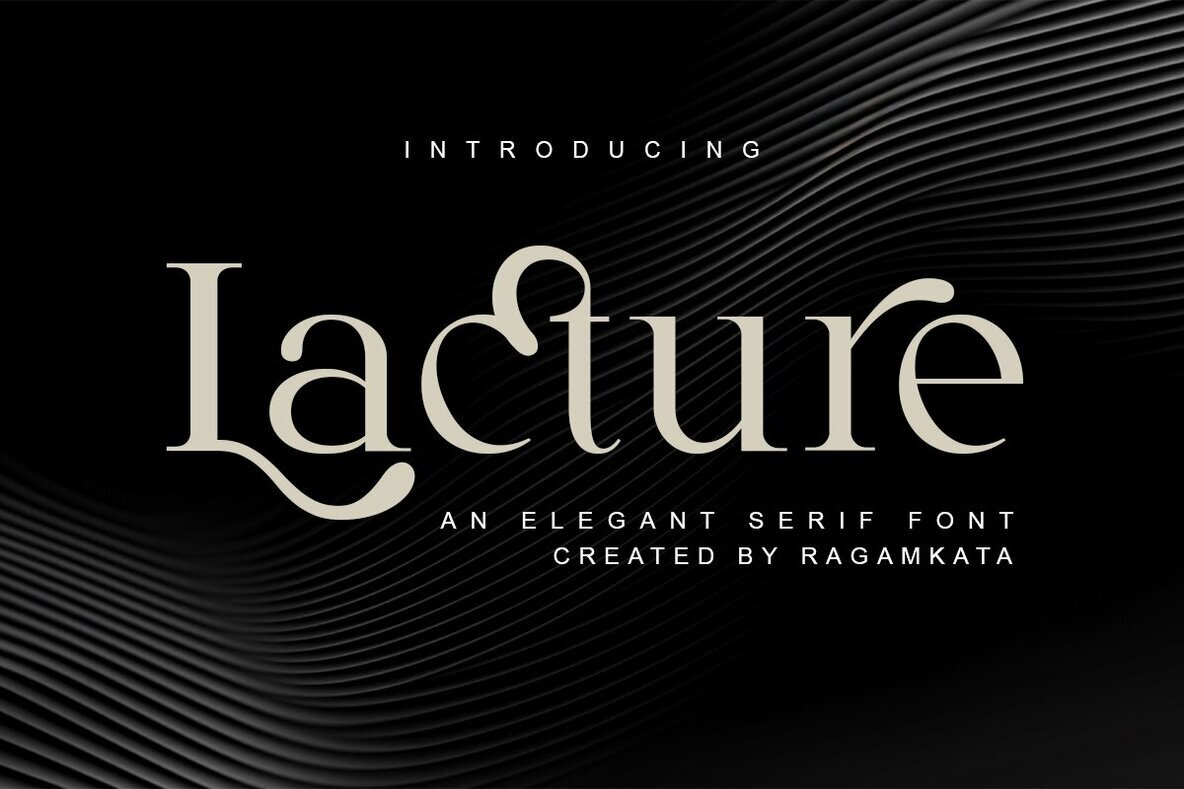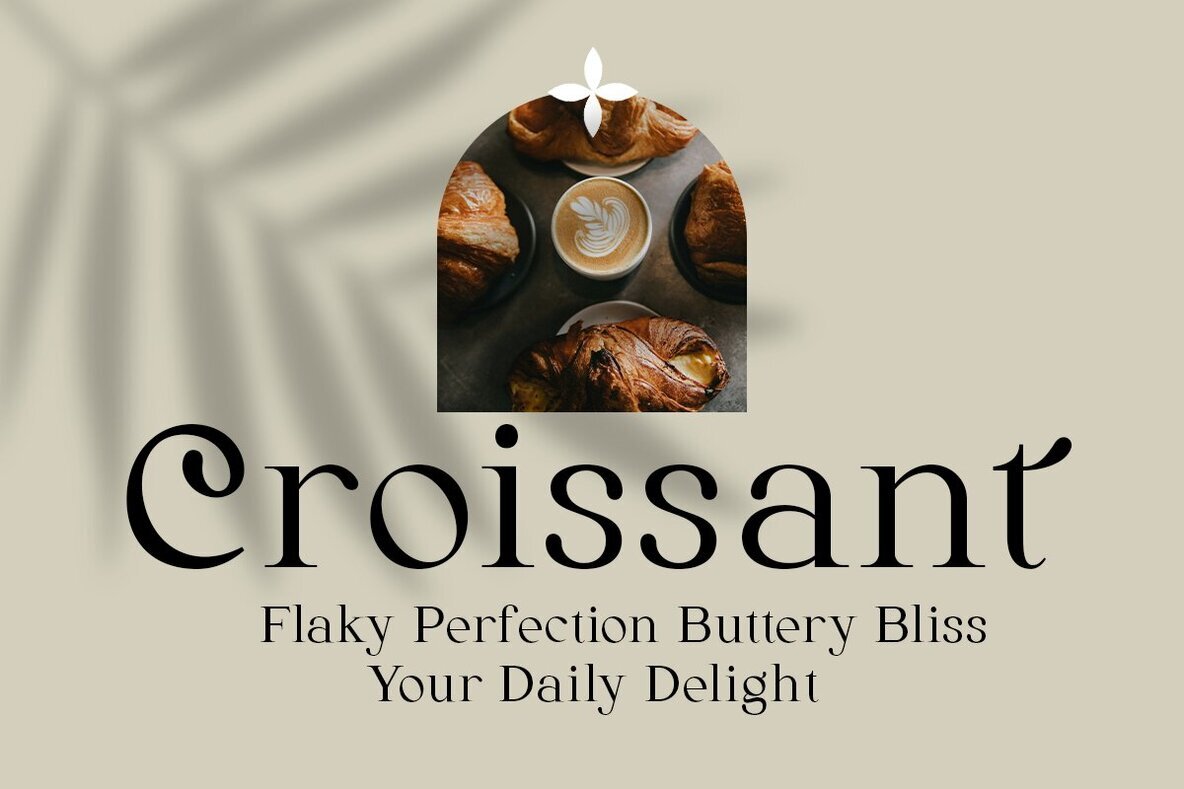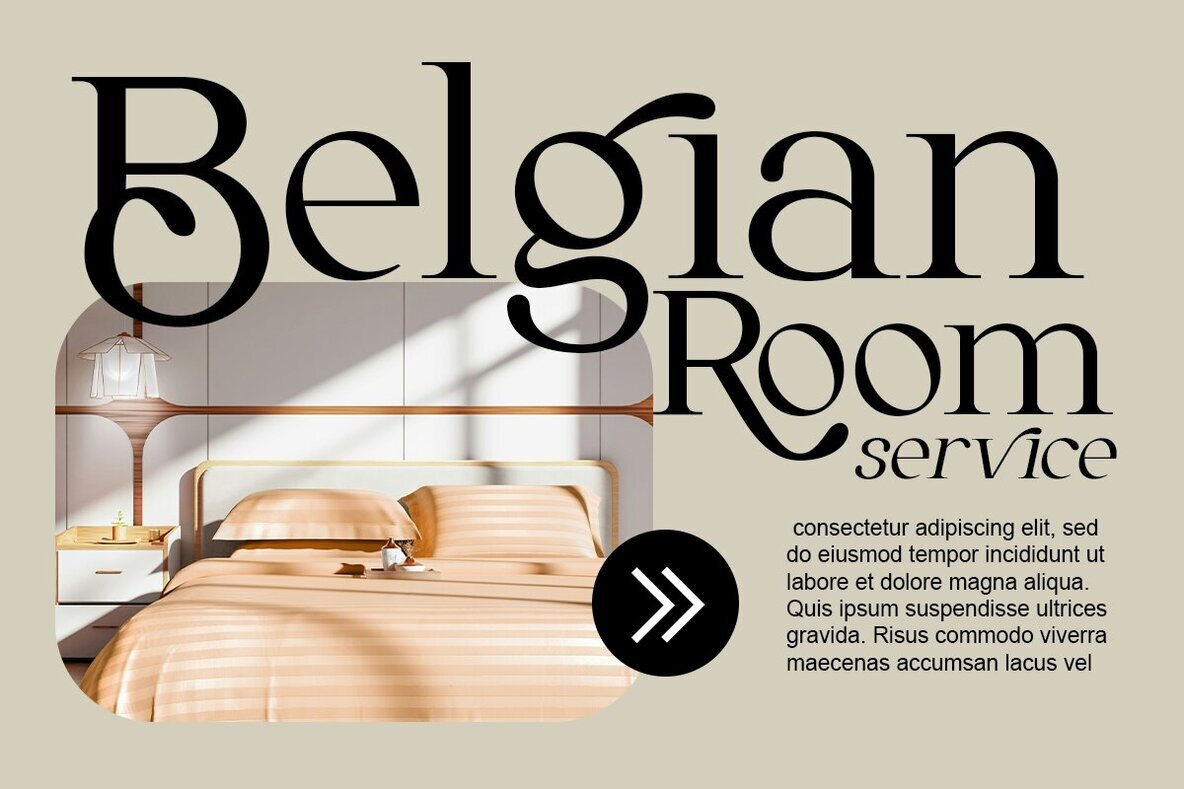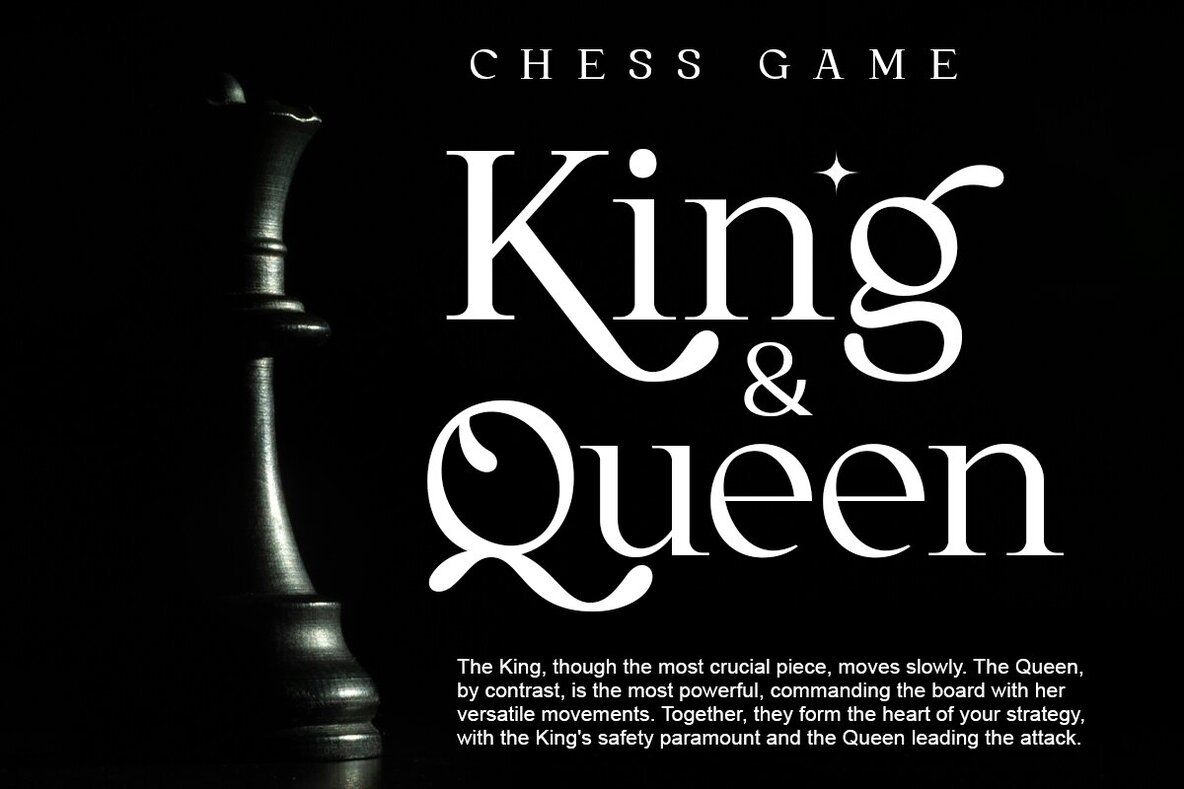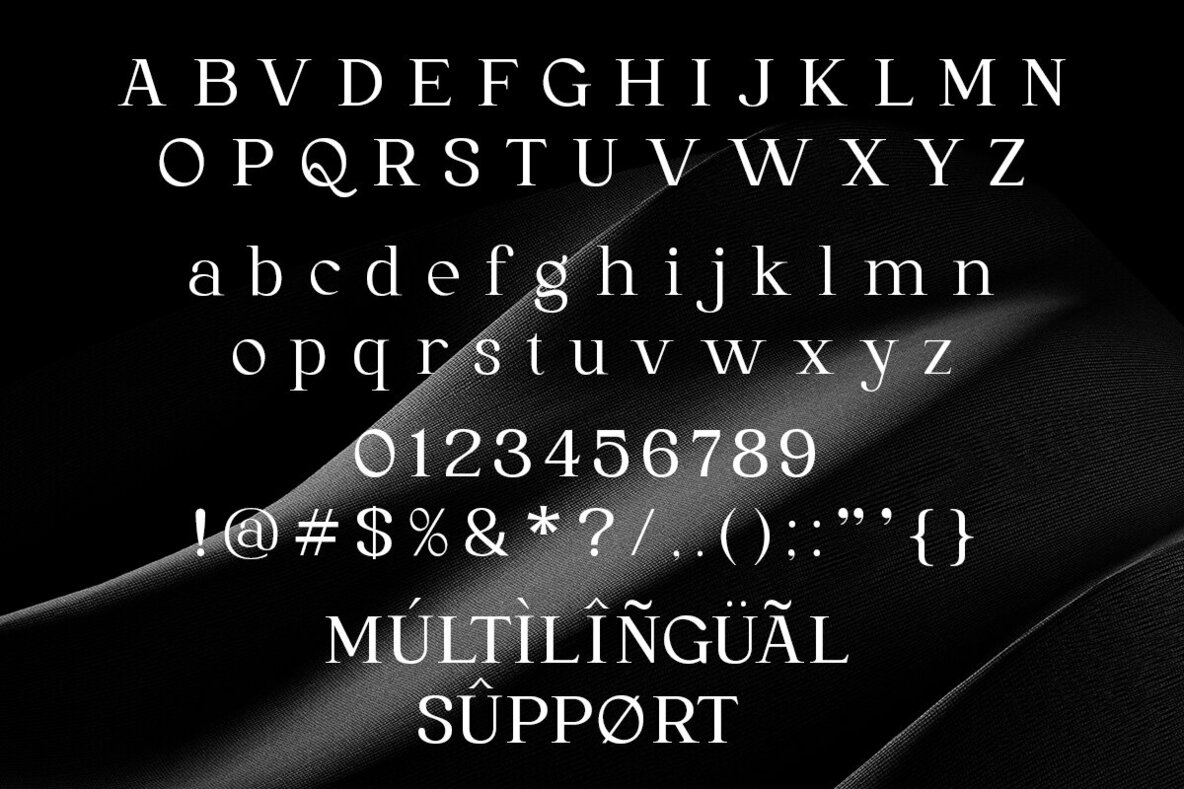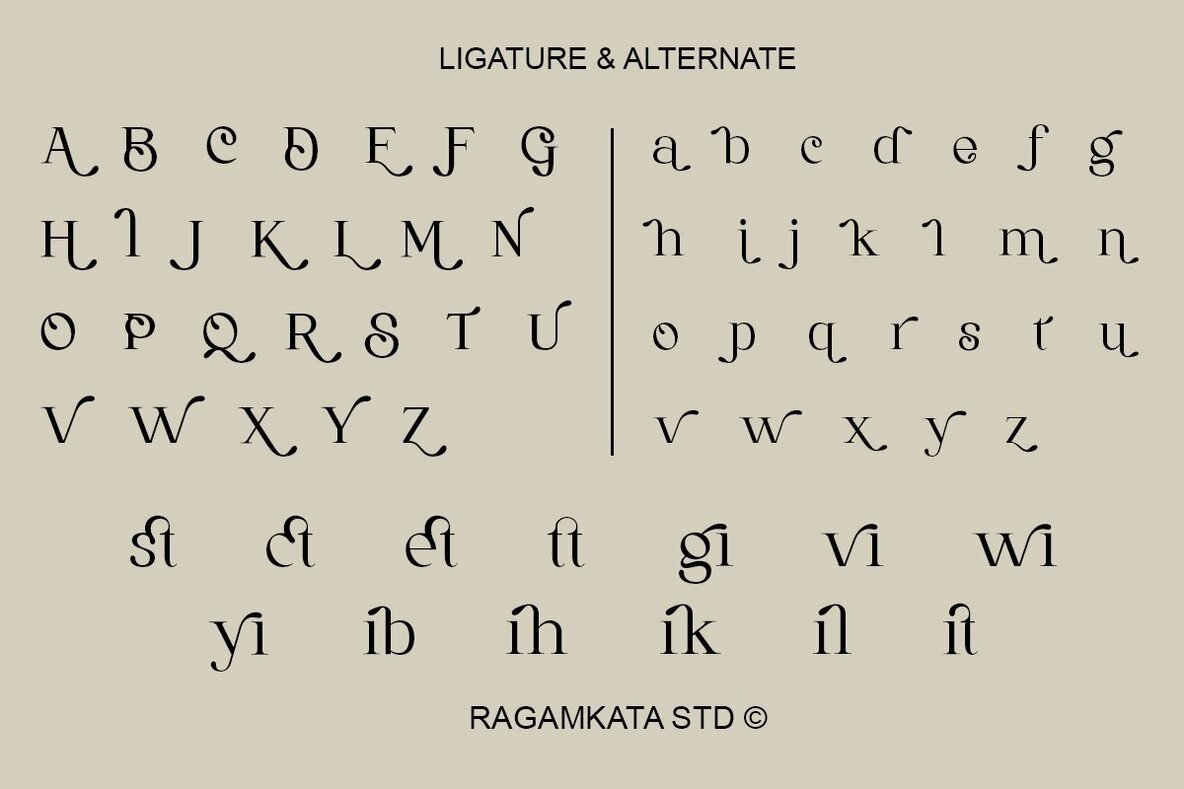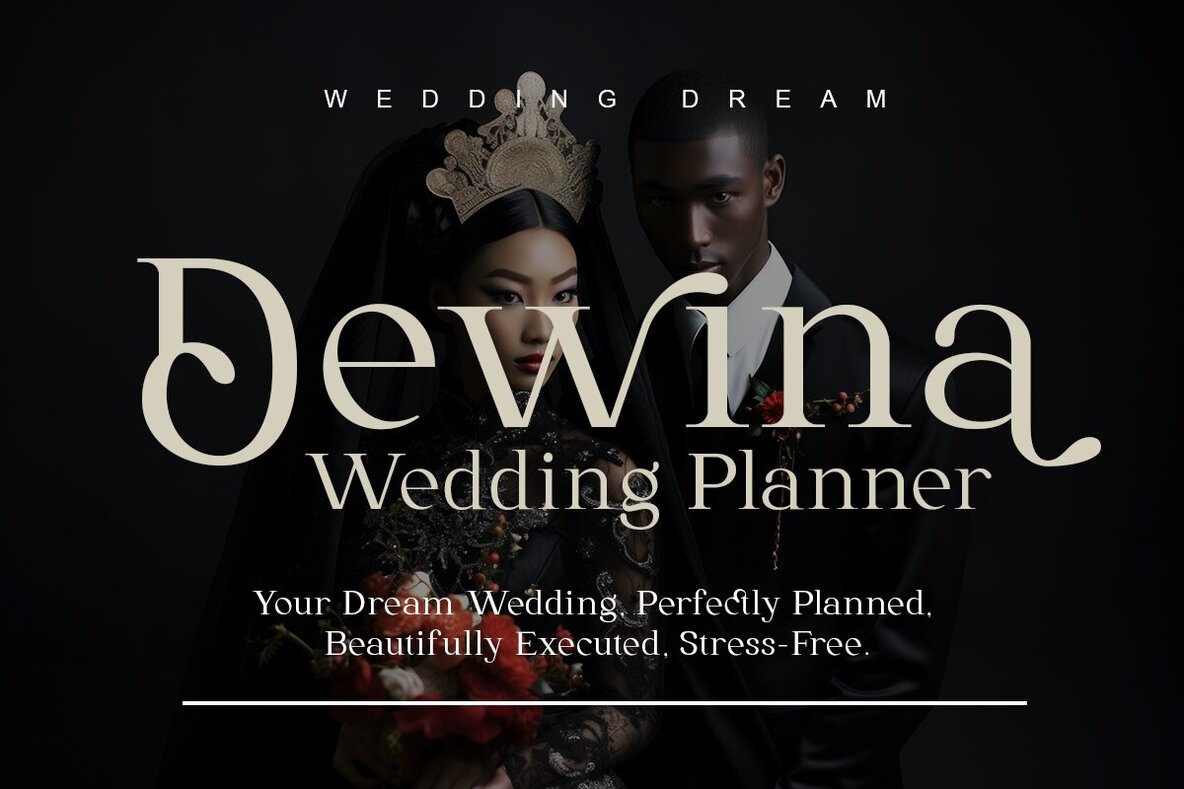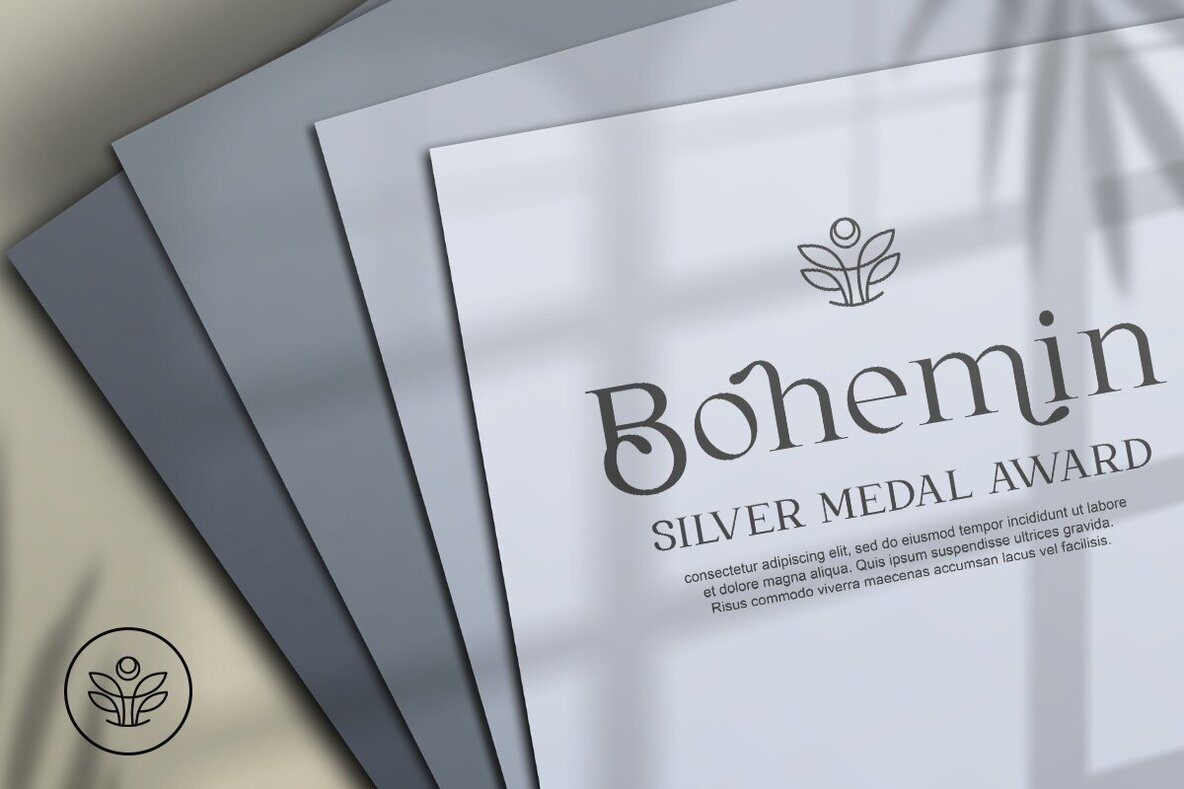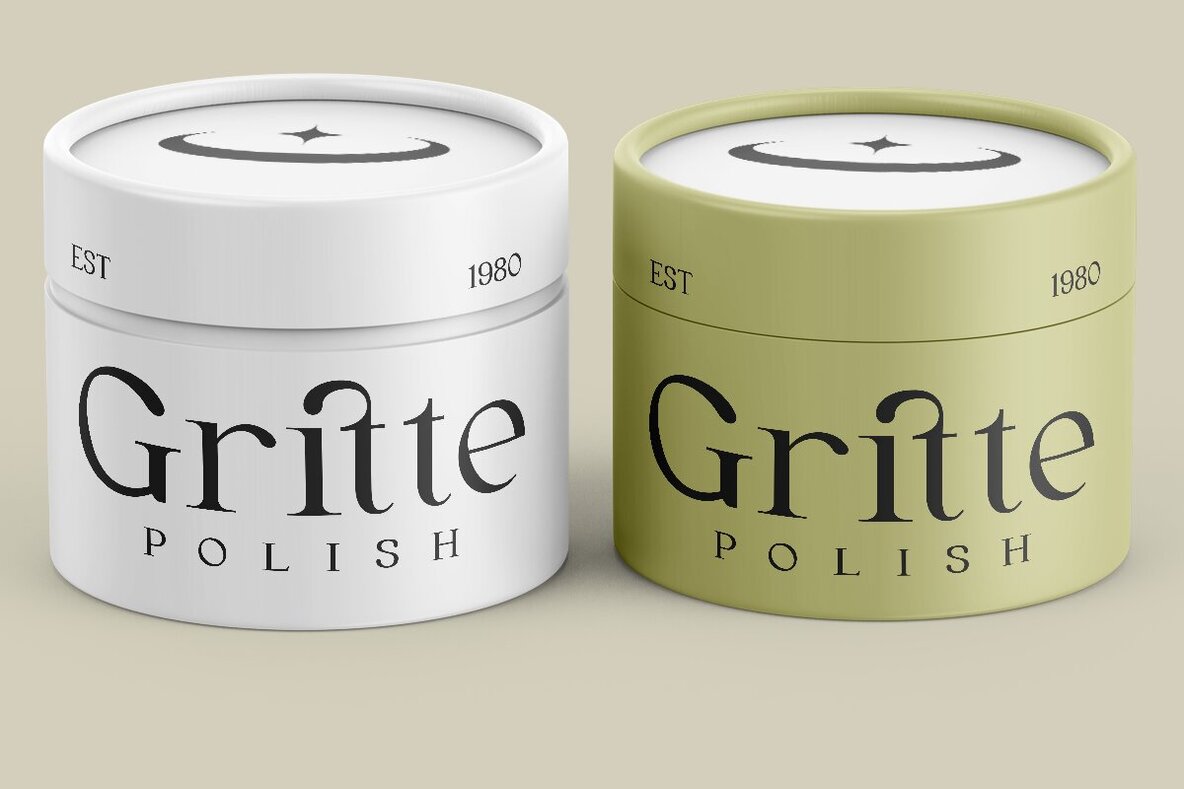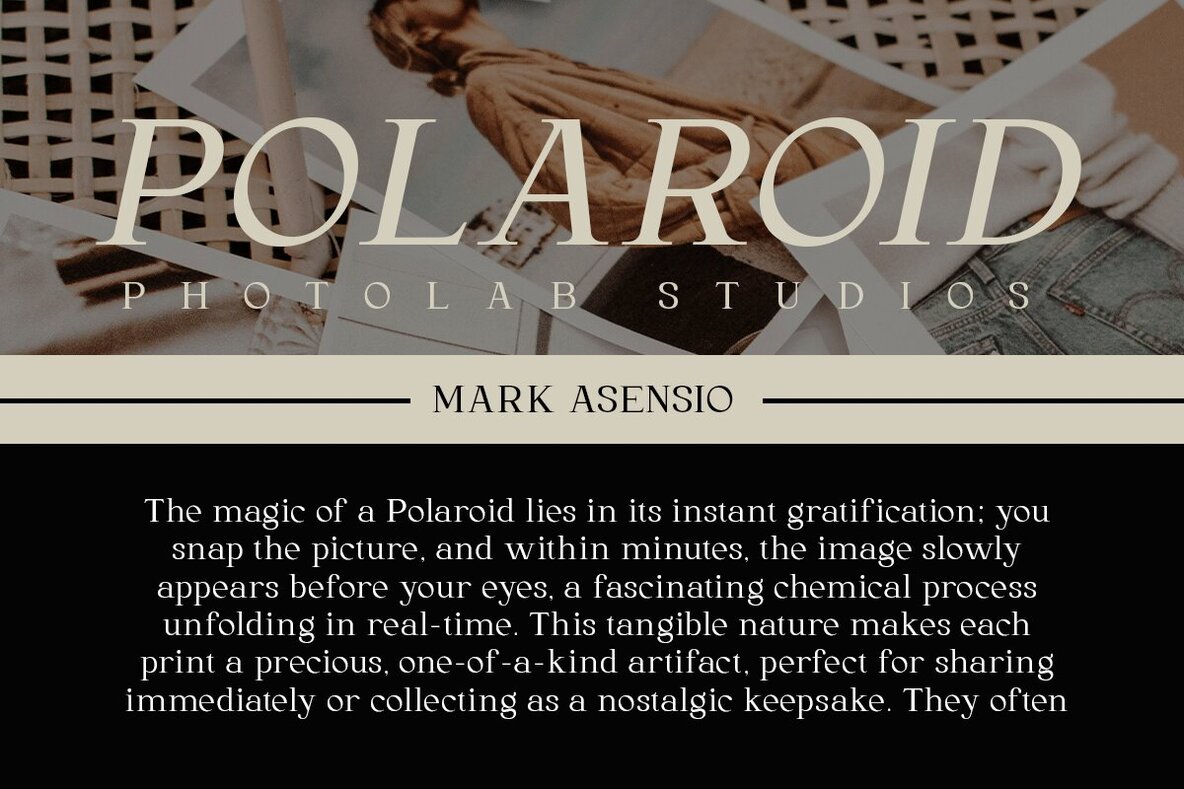
Lacture Font
Introducing Lacture, a refined serif font that brings sophistication to your creative projects. With its graceful curves and high-contrast strokes, Lacture is perfect for editorial design, branding, luxury packaging, fashion headlines, invitations, and more. This font brings prestige and a timeless beauty to any layout. Lacture's balanced proportions and smooth letterforms ensure excellent readability while maintaining a distinctive personality.Lacture - An Elegant Serif Font